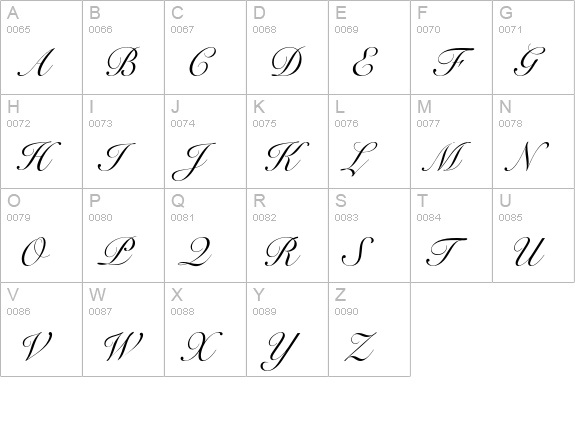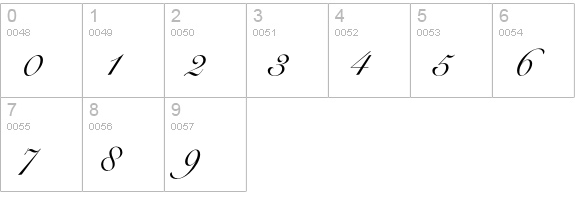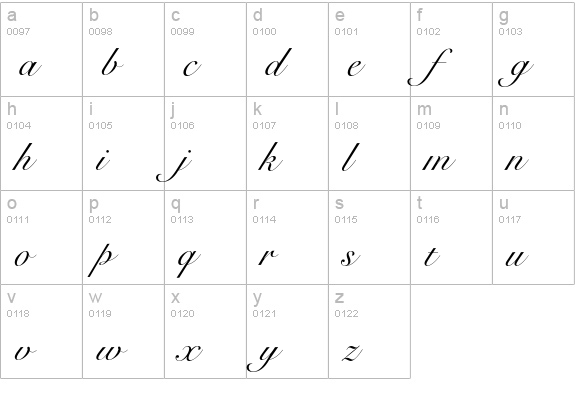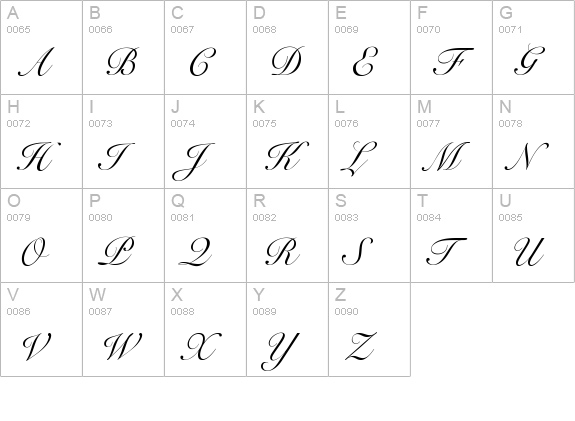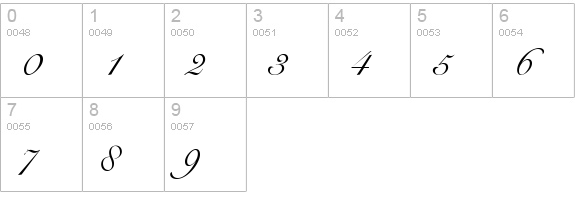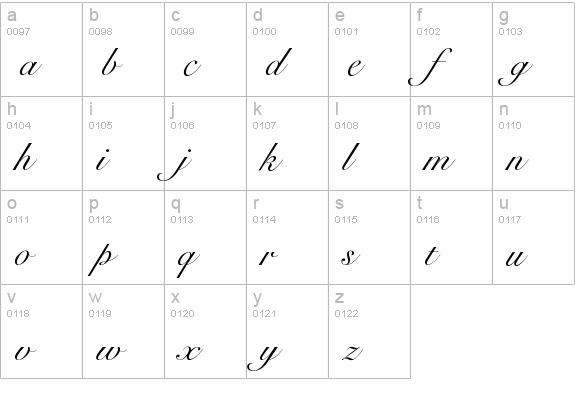
Introducing Snell font, a breathtaking typeface that effortlessly combines elegance with modern simplicity. This versatile font is perfect for adding a touch of sophistication to any project, whether it be logo design, branding, editorial layouts, or website headers. With its clean lines and timeless appeal, Snell font is sure to make a lasting impression. Its carefully crafted letterforms exude a sense of refinement, making it a popular choice among designers and creatives alike. The precise curves and balanced proportions of each character create a harmonious visual experience, ensuring legibility and readability at any size. But what sets Snell font apart from the rest is its accessibility. This extraordinary font is available for free download exclusively at FontsMarket.com. Yes, you read that right – absolutely free. Now, anyone can elevate their designs without breaking the bank, thanks to this generous offer. Whether you're a seasoned professional or a budding designer, Snell font will undoubtedly become an invaluable asset in your creative arsenal. Its versatility and timeless appeal make it suitable for a wide range of applications, from elegant wedding invitations to sleek corporate presentations. So, why wait? Don't miss out on the opportunity to enhance your designs with this exceptional typeface. Visit FontsMarket.com today and experience the beauty and freedom of Snell font – all at no cost. Your design projects will never be the same again.